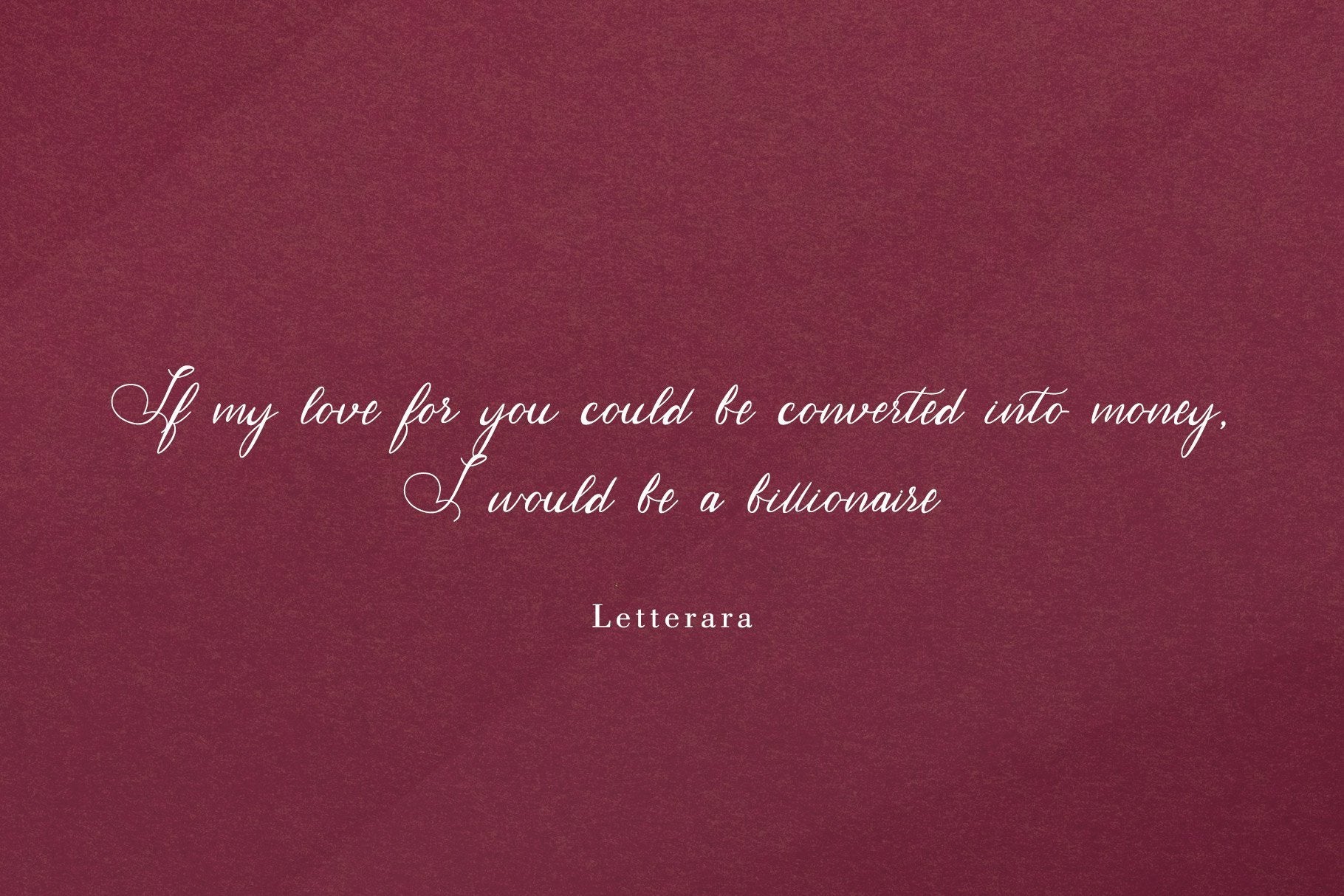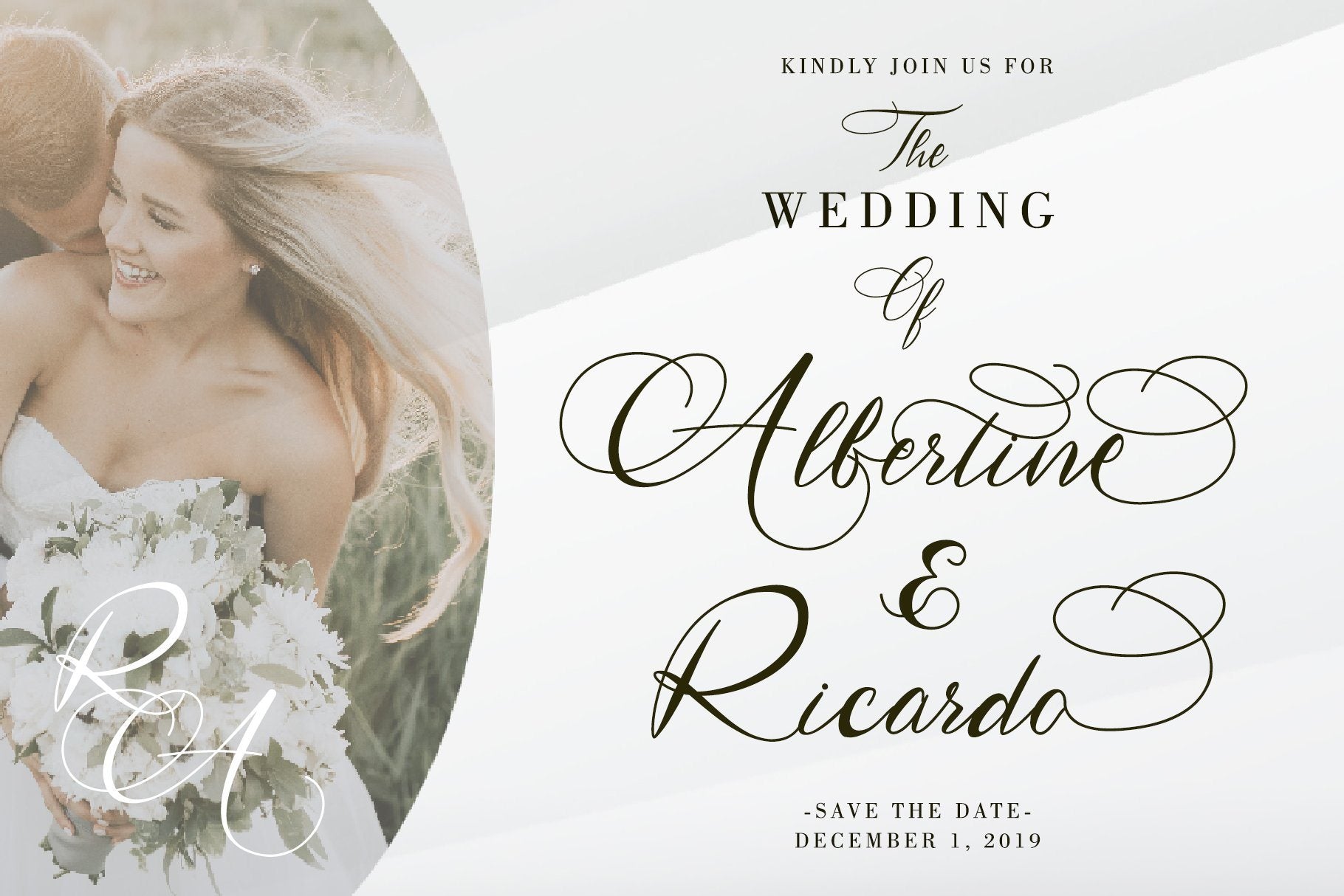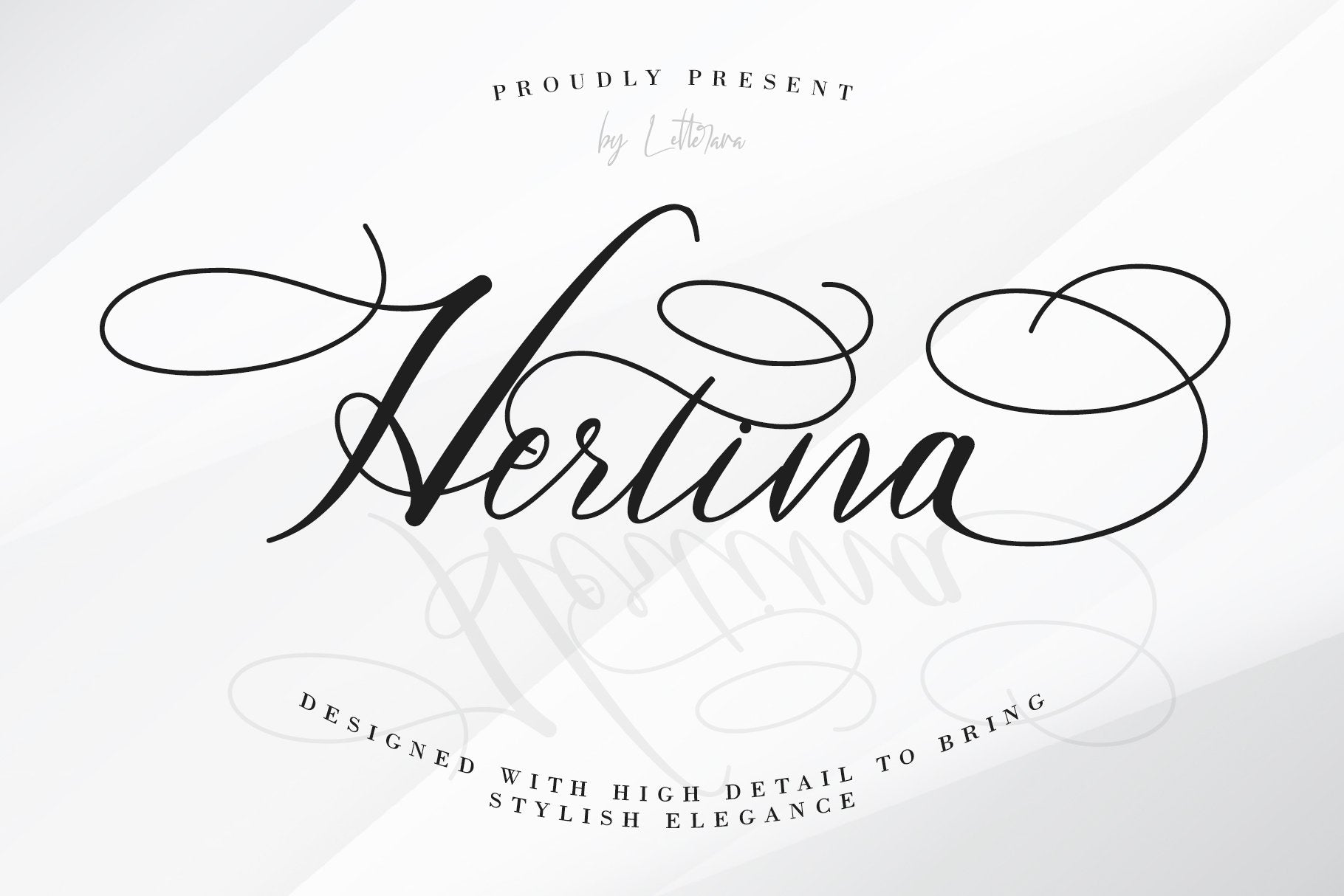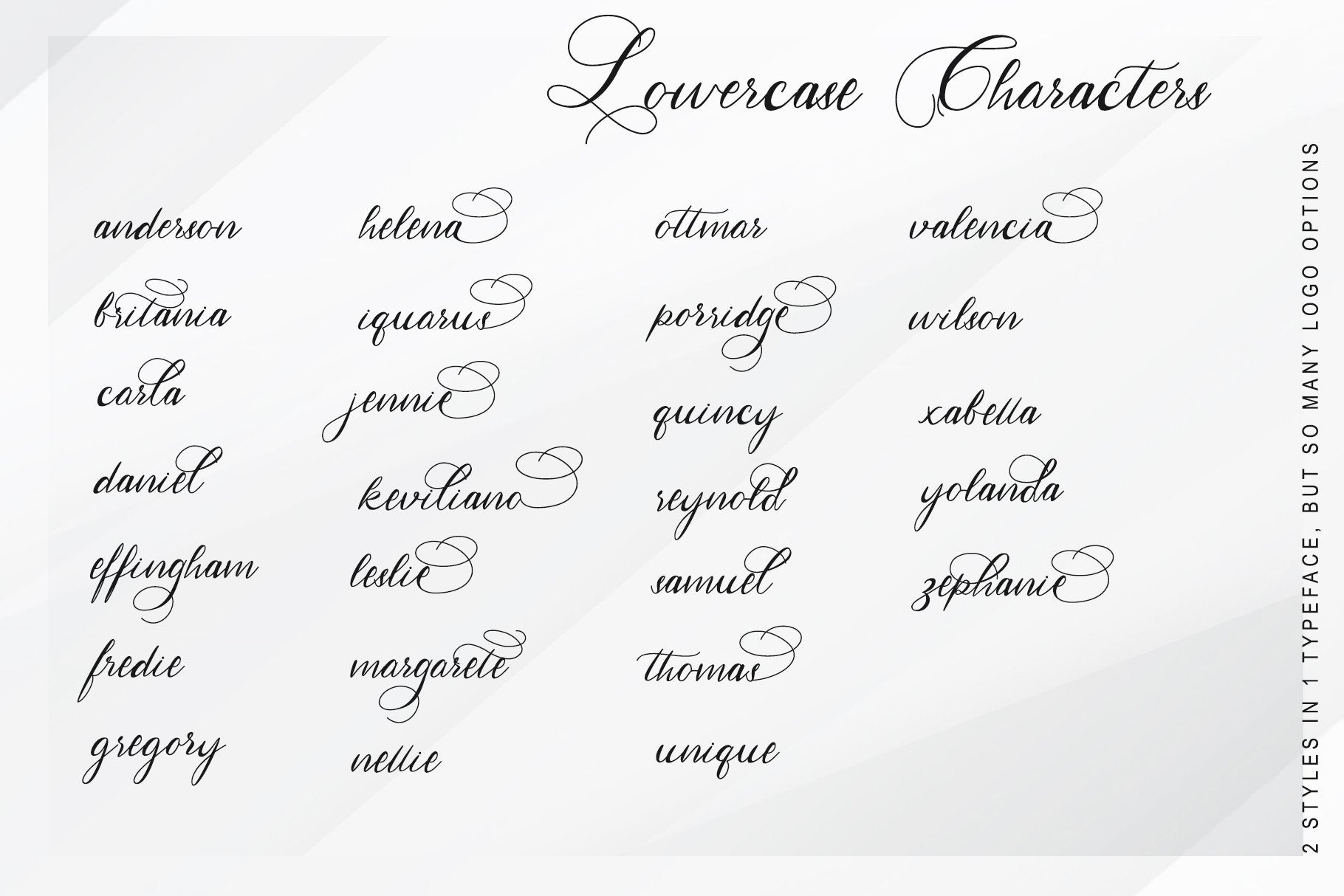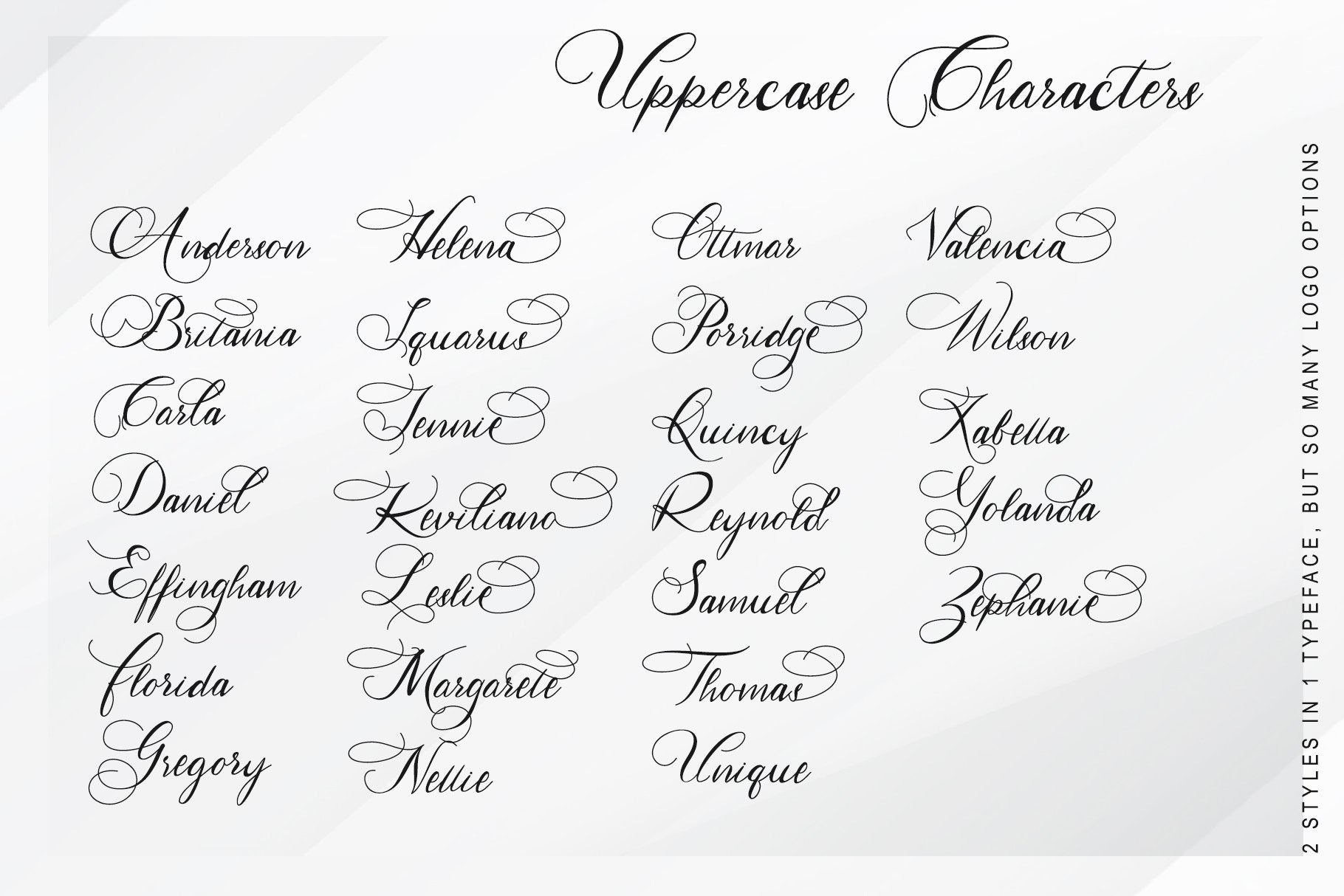
Hertina
About Hertina
Hertina designed With High Detail To Bring Stylish Elegance.  this font is for those who are in need of an elegant and appropriately modern calligraphy script. that are also beautiful Thanks for checking out my store, and feel free to get in touch if you have any questions!  Features : Upper Case & Lowercase Numerals Punctuations (OpenType Standard) Accents (Multilingual characters) Titling, Ligatures, Swash Works on PC & Mac Simple installations Accessible in the Adobe Illustrator, Adobe Photoshop, Adobe InDesign, even works on Microsoft Word. don’t wait anymore, put it in your shopping basket 🙂 and follow me, because there will be many promos! Our other products : BEST SELLER JENNIE BLACK PINK SIGNATURE ANDORA BRIGITTA HEANFFE EIFFEL IN LOVE ( FONT TRIO) BLACK PINK SUMMER HONG KONG ANGEL MALEFICENT California Street BESTOWENS FAMILY